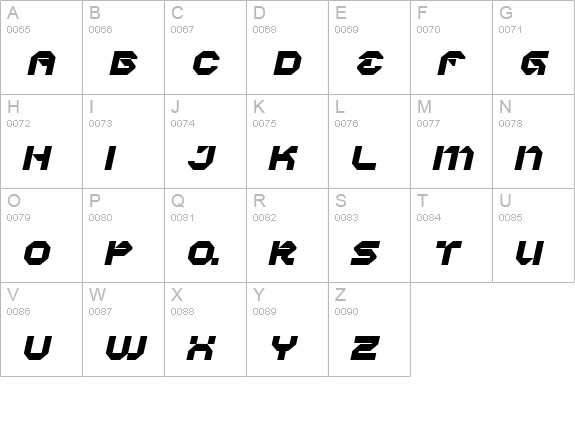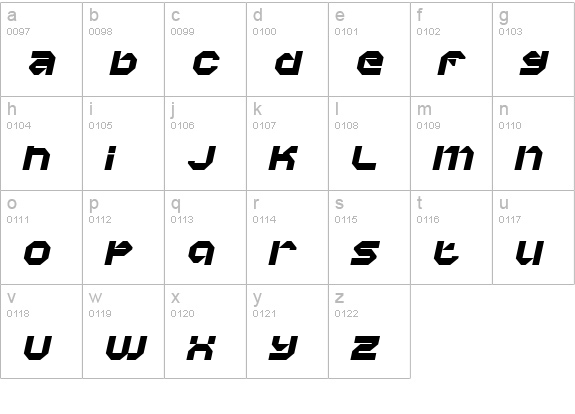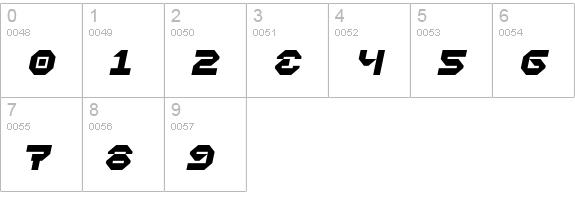
Vaporbyte Phat Italic Font Details
Vaporbyte Phat Italic is a distinctive, italic variant in the Vaporbyte typeface family \xE2\x80\x94 well suited to design and typography projects.
Introducing the stunning Vaporbyte Phat Italic font, a captivating and effortlessly stylish typeface that exudes a sense of modernity and sophistication. This unique font combines sleek lines with a touch of edginess, making it the perfect choice for those seeking to make a bold statement with their designs. With its distinct italicized form, Vaporbyte Phat Italic sets itself apart from conventional fonts, adding a dynamic and energetic flair to any project. Whether you're designing a logo, creating eye-catching headlines, or crafting a visually stunning poster, this font is sure to leave a lasting impression. But what sets Vaporbyte Phat Italic apart from other fonts is not only its striking aesthetics but also its availability. That's right – this extraordinary font is absolutely free to download at FontsMarket.com. Now, you can infuse your designs with the utmost creativity and professionalism, all without breaking the bank. Imagine the endless possibilities that await you as you harness the power of Vaporbyte Phat Italic. Its versatility allows it to seamlessly adapt to various design themes, from sleek and modern to bold and rebellious. With each character meticulously crafted to perfection, this font effortlessly captures attention and elevates any project to new heights. Whether you're a seasoned graphic designer or just starting your creative journey, Vaporbyte Phat Italic is a must-have addition to your font collection. Its clean and legible characters guarantee readability across various mediums, ensuring that your message is communicated with clarity and impact. So don't miss out on this extraordinary opportunity to enhance your designs with the alluring charm of Vaporbyte Phat Italic. Head over to FontsMarket.com and start exploring the endless creative possibilities today. Download this remarkable font for free and unlock a world of design possibilities that will captivate and inspire.